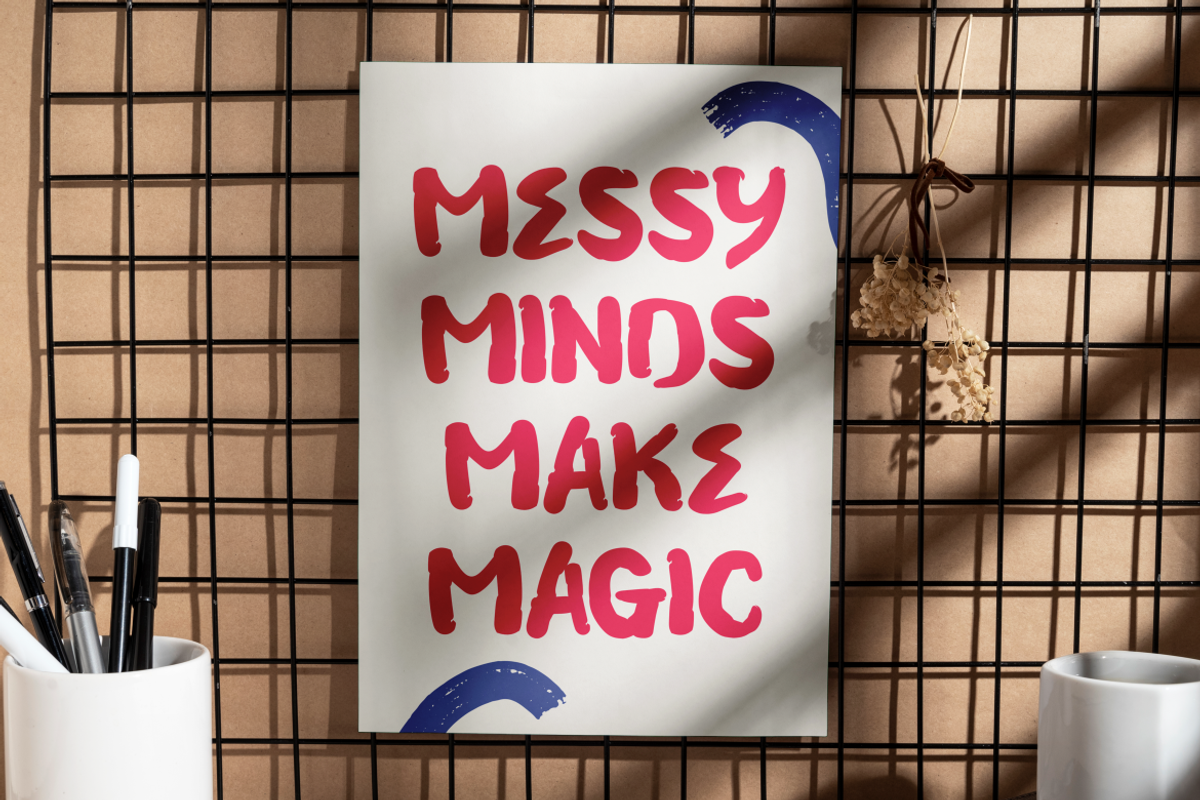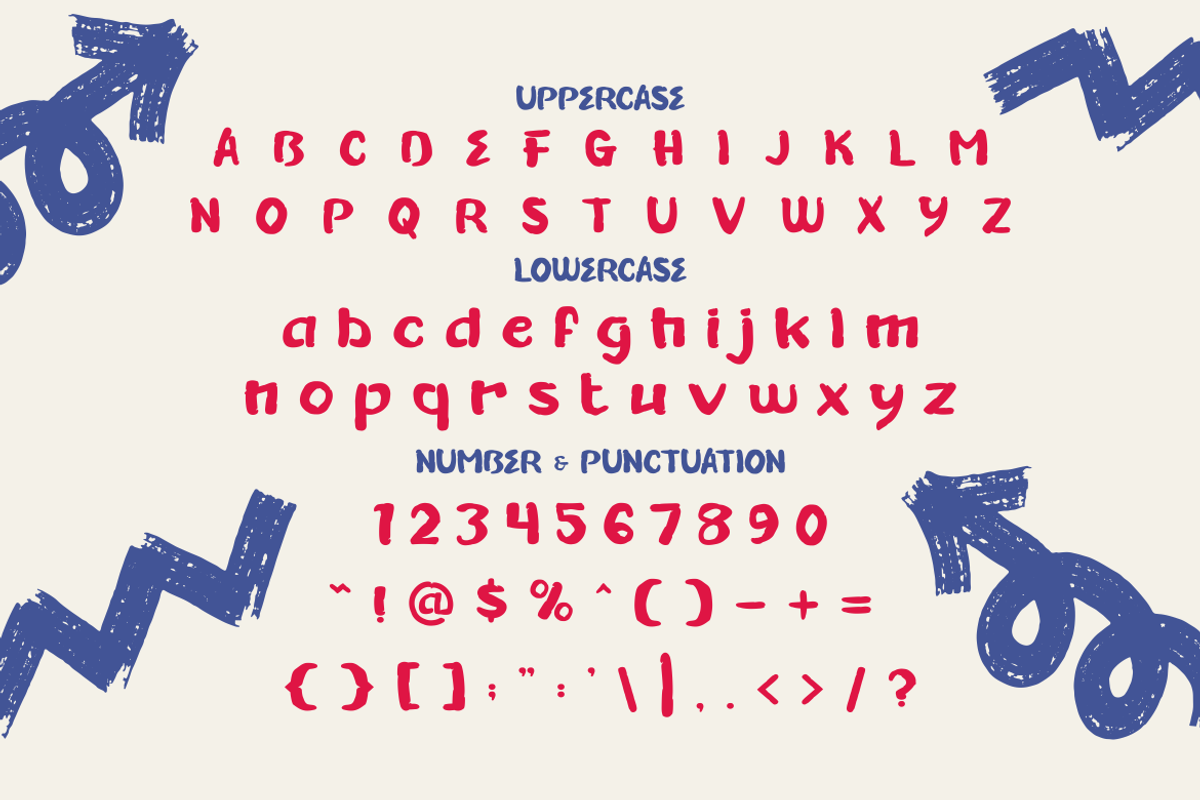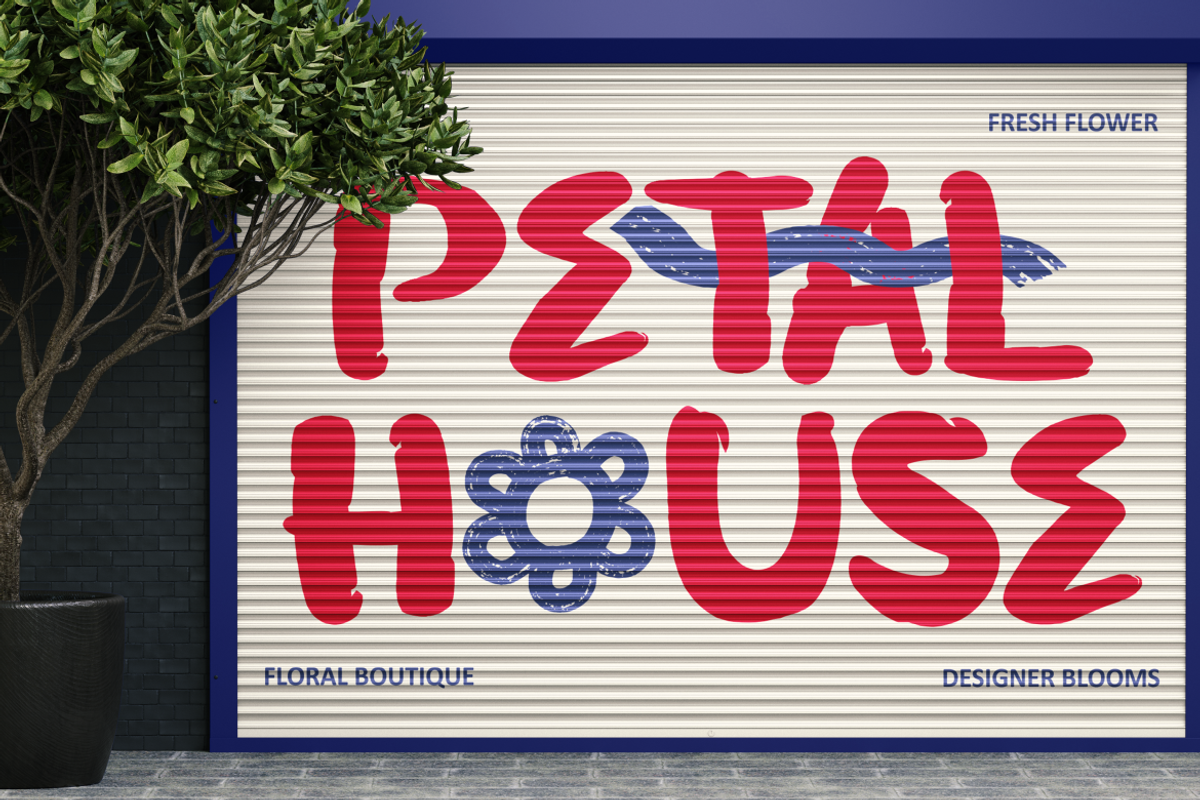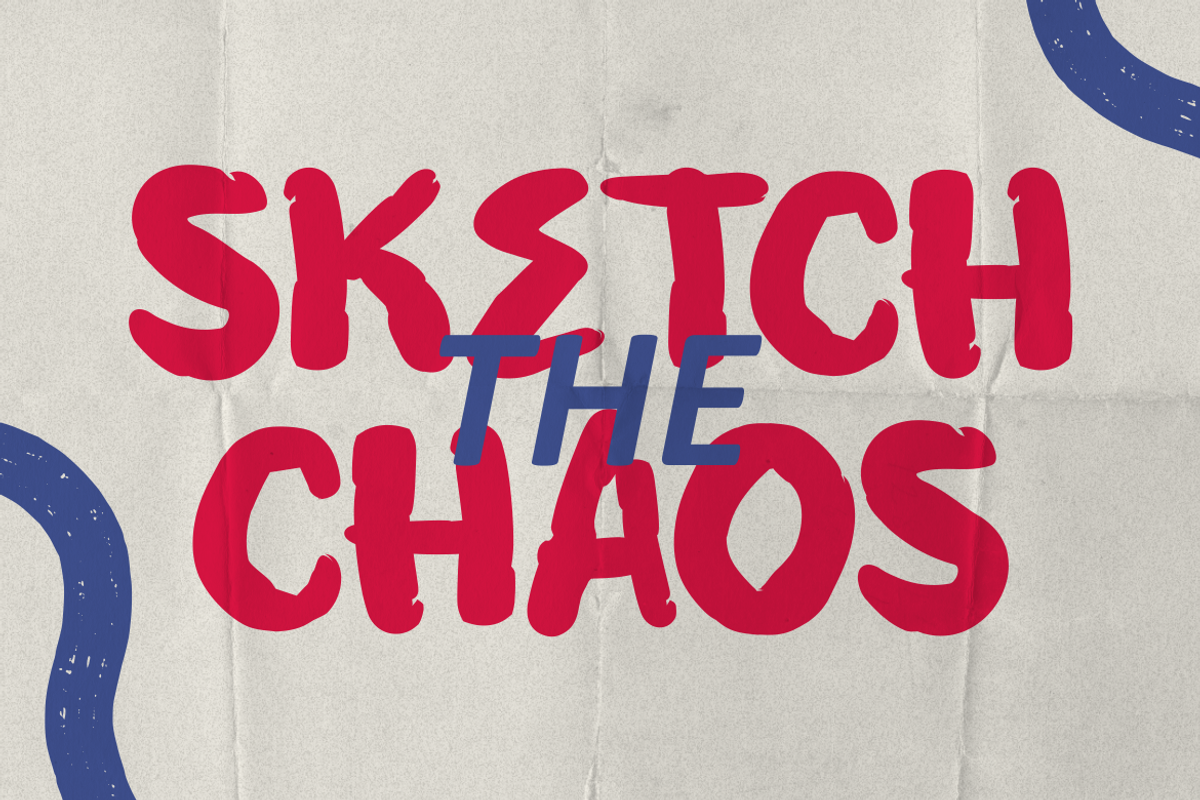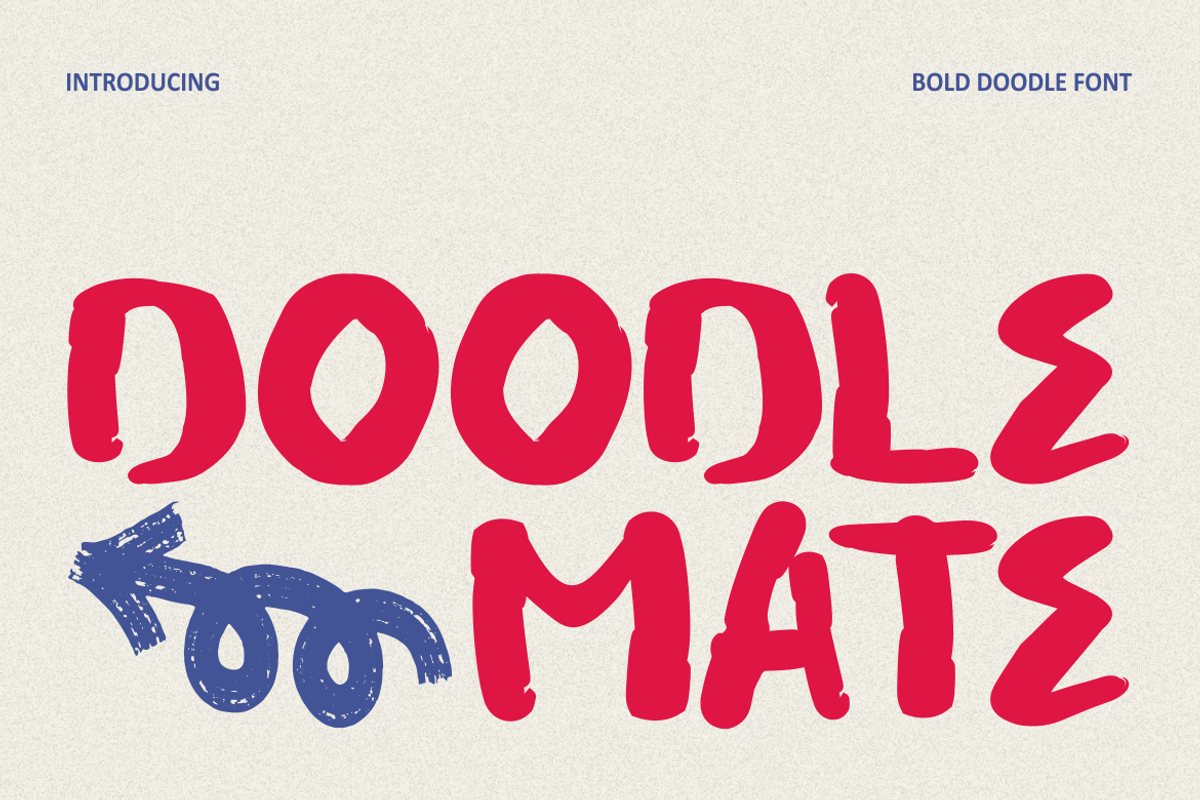
Doodle Mate Doodle Brush Font
Doodle Mate Doodle Brush Font is a lively and expressive typeface that captures the spirit of spontaneous creativity. Each letter is crafted with bold, thick strokes that mimic the organic feel of hand-painted brush lettering. The uneven edges and playful imperfections give the font a genuine doodle-like charm, making it full of movement and personality. Its rounded shapes, soft corners, and dynamic rhythm bring a casual yet confident visual energy. Doodle Mate Doodle Brush Font combines artistic boldness with a friendly tone—perfect for projects that need both strength and fun in their typography.
Ideal for logos, posters, packaging, invitations, or creative branding, this font shines when used to make words feel alive. It fits perfectly in designs for handmade crafts, children’s products, or expressive advertising. The bold weight and brush-inspired texture make it stand out in headlines and display compositions, while still keeping a human touch. Doodle Mate Doodle Brush Font gives every project a lively hand-drawn aesthetic that feels personal and energetic. Whether for modern branding, DIY projects, or creative visuals, it adds the perfect balance between bold expression and doodle charm.